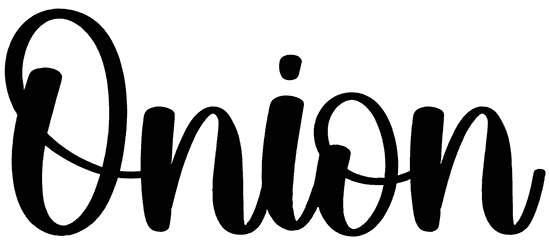
Onion Font
When you don’t want a simple style or a distinct, detailed form for your project, a marker font like this one will be an apt selection. The smooth and captivating form of this modern calligraphy font will create a ravishing mood for your text. Set Onion font on your Christmas event invitation flyer and communicate well with your viewers.